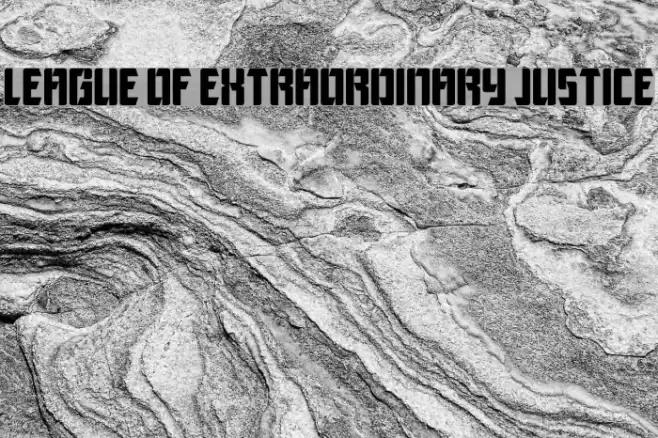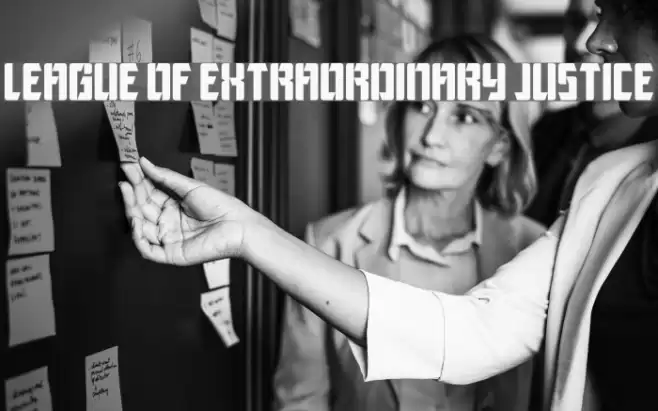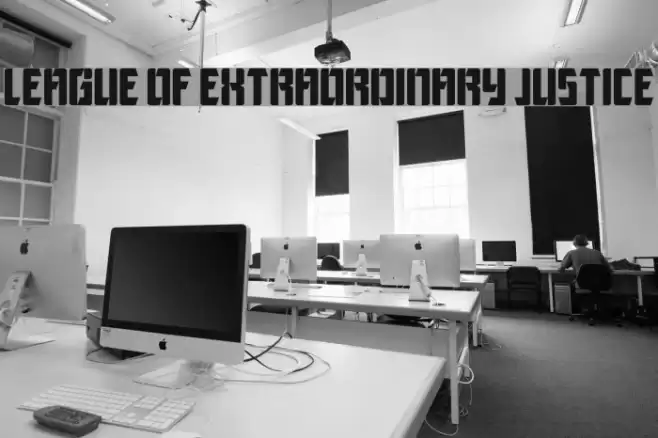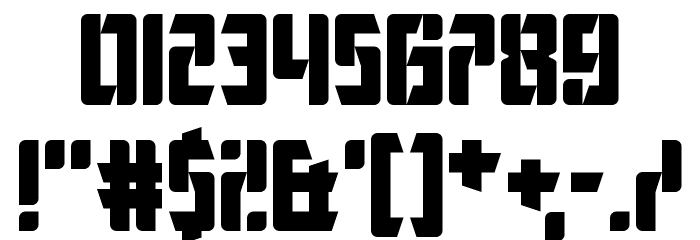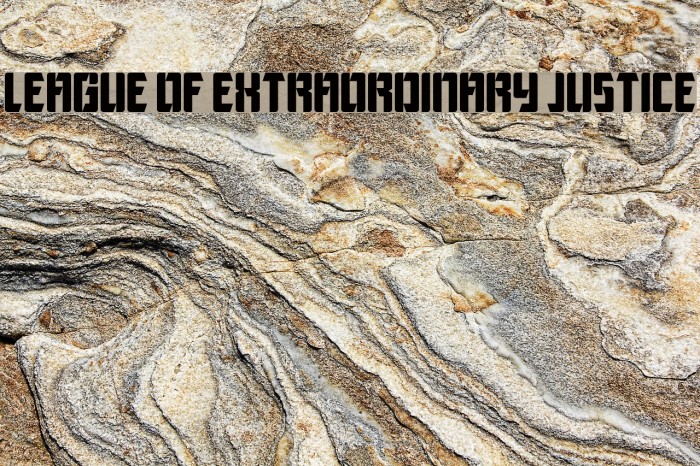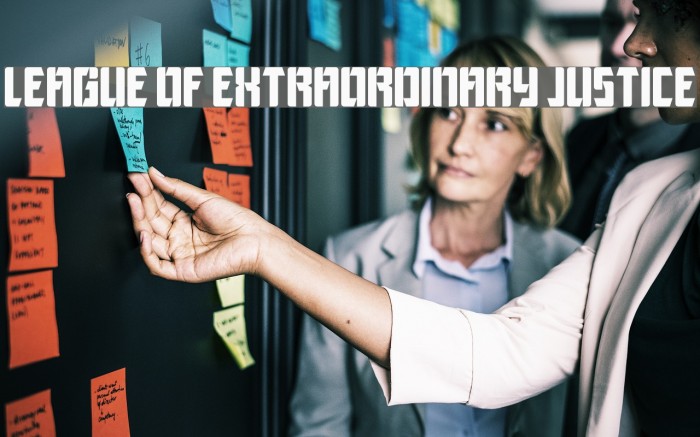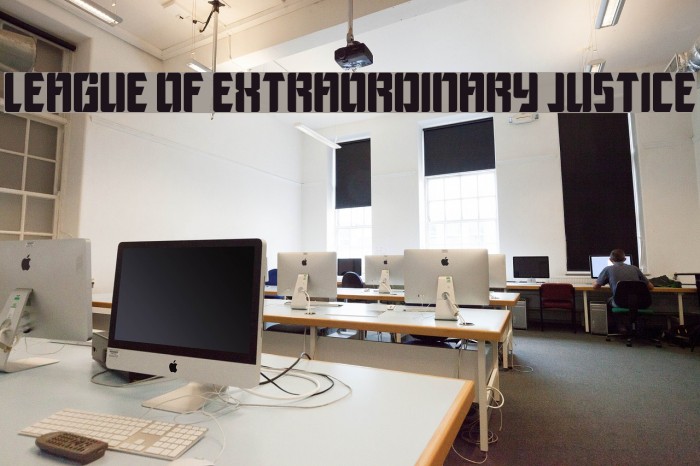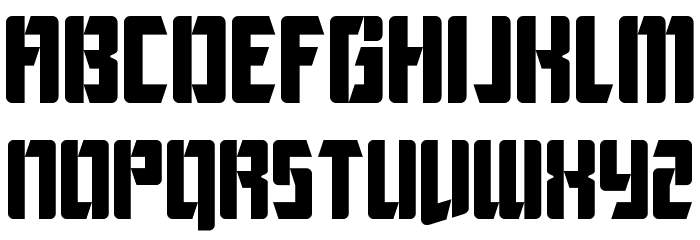
League of Extraordinary Justice Font
League of Extraordinary Justice Description
This font features a bold and geometric design with a strong, impactful presence. The characters are constructed with sharp angles and straight lines, creating a futuristic and industrial feel. The uppercase and lowercase letters maintain a consistent style, with a uniform height and width that enhances readability. The numbers and special characters are designed to match the boldness and angularity of the alphabet, ensuring a cohesive look across all text elements. This font's unique style makes it stand out, making it suitable for projects that require a modern and edgy aesthetic.
A bold, geometric font with a futuristic and industrial style from Uncategorized fonts.
- Proposed Projects: Ideal for branding, posters, video game graphics, and sci-fi themed designs.